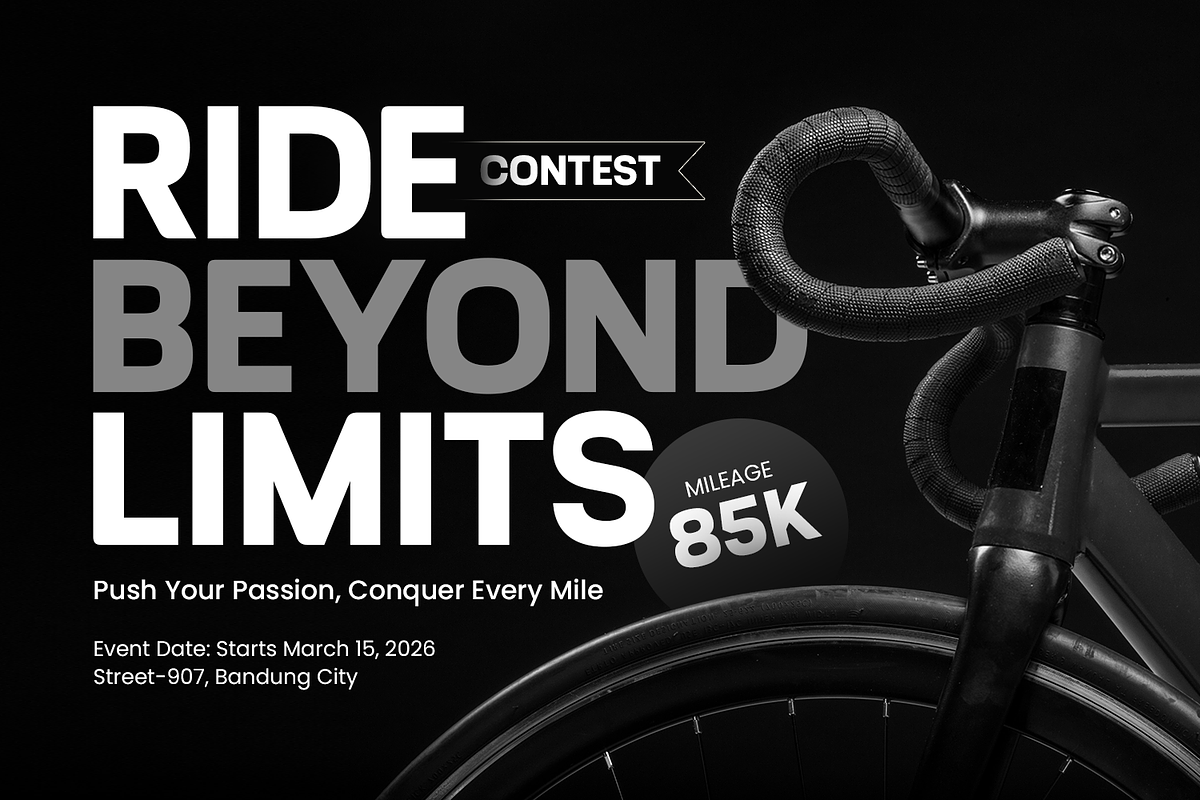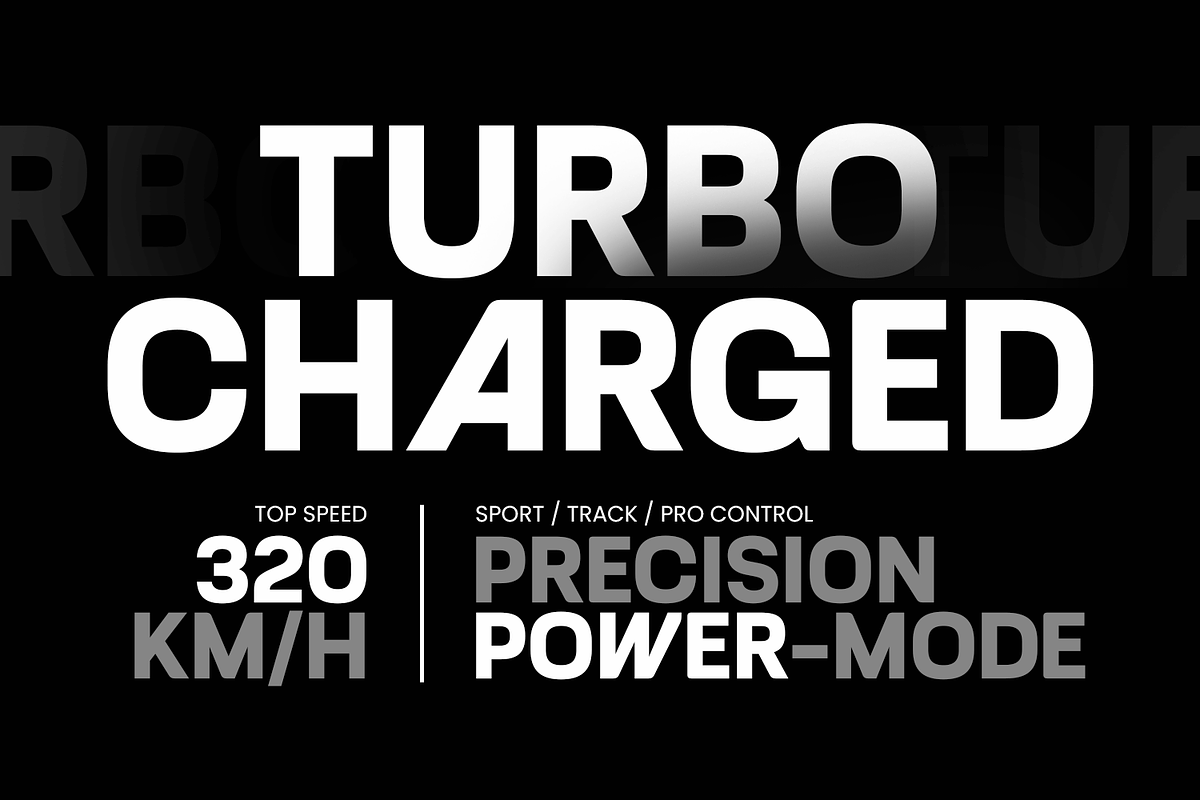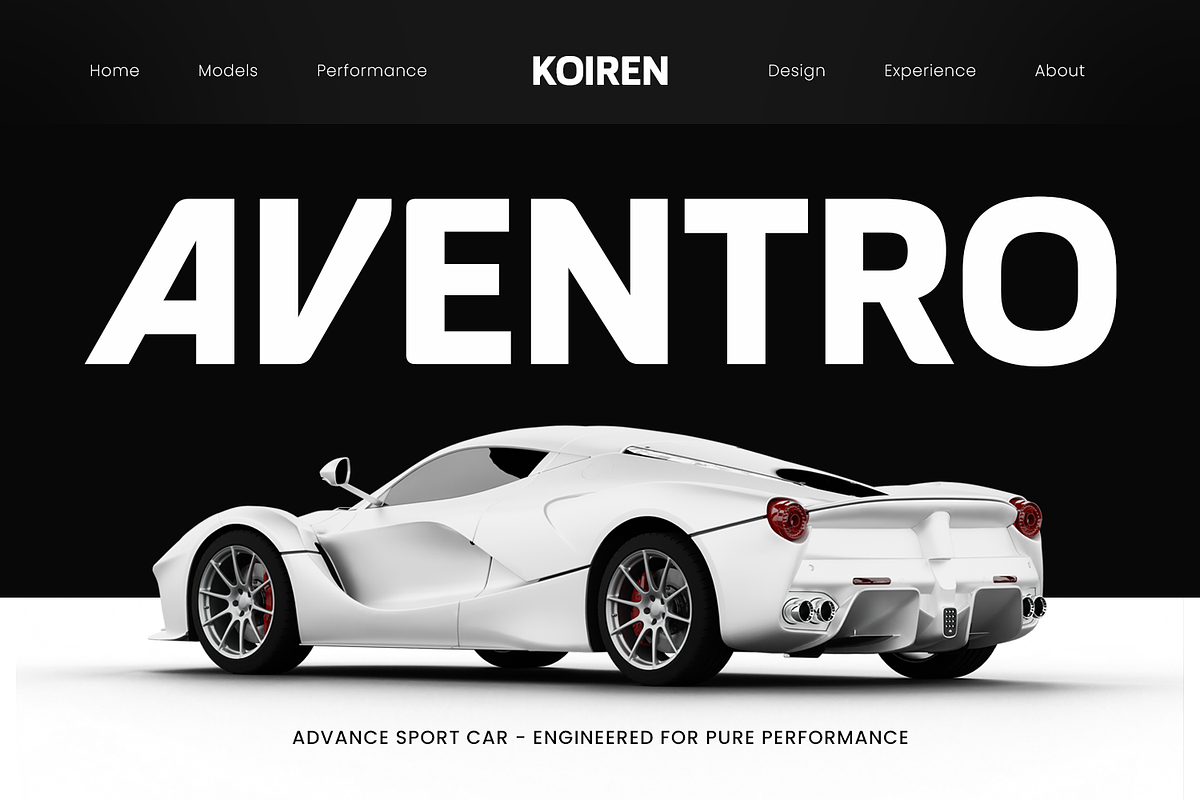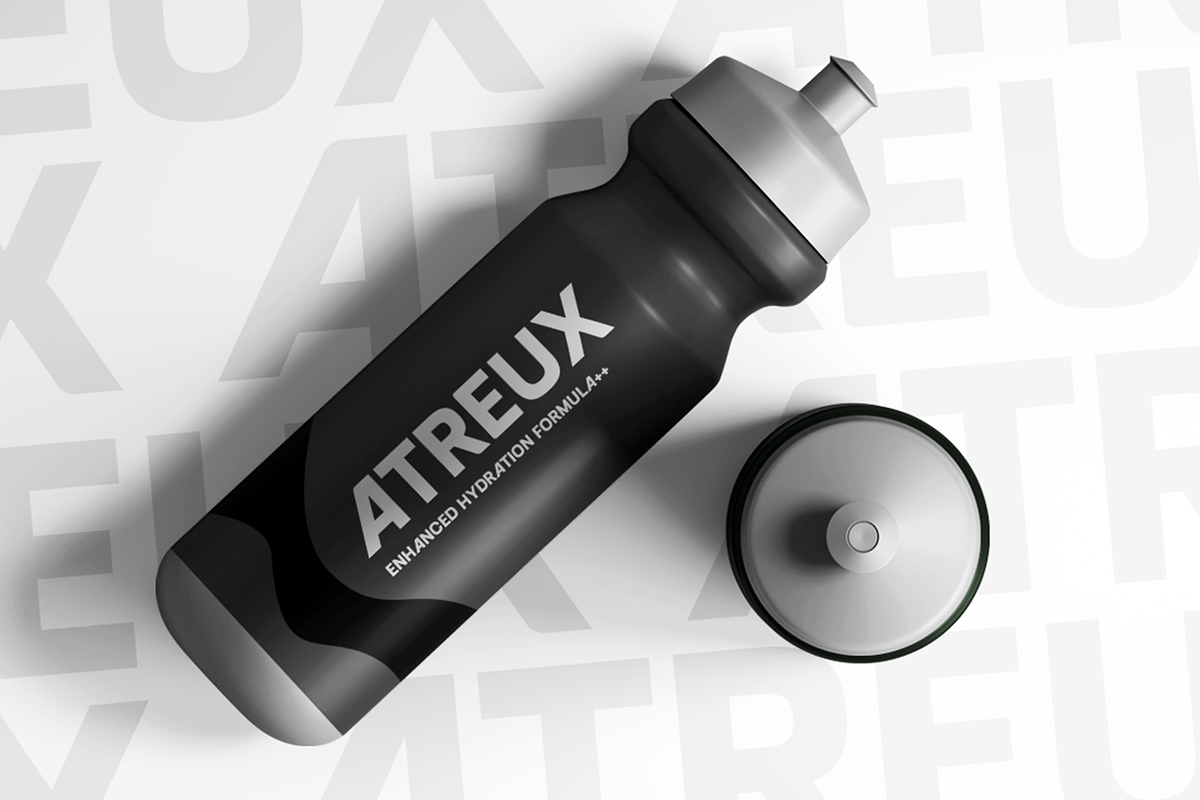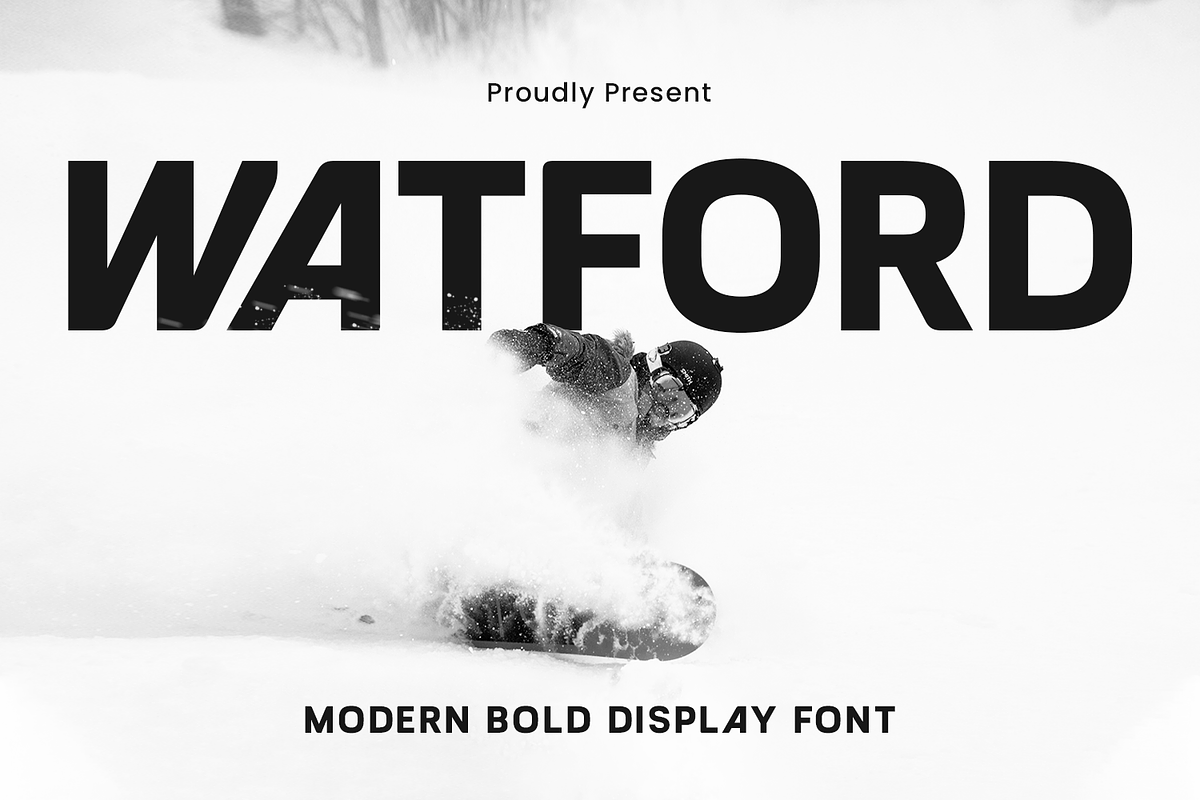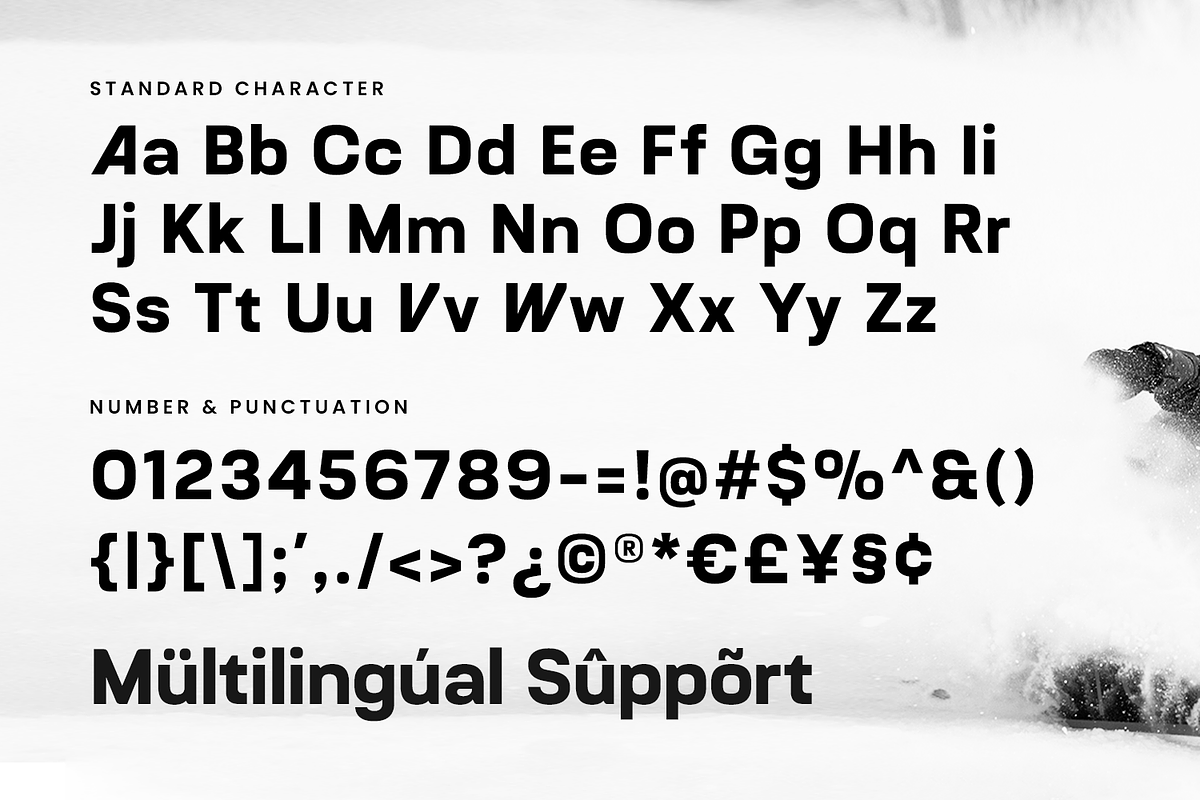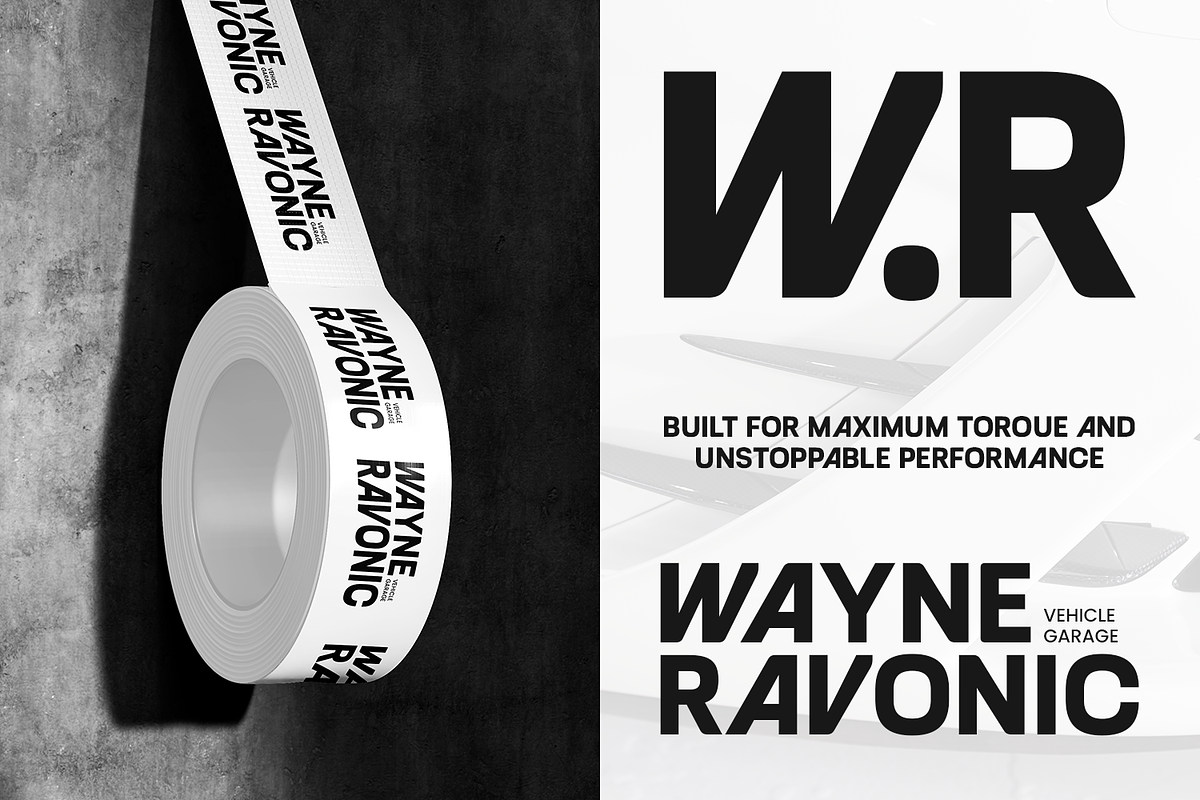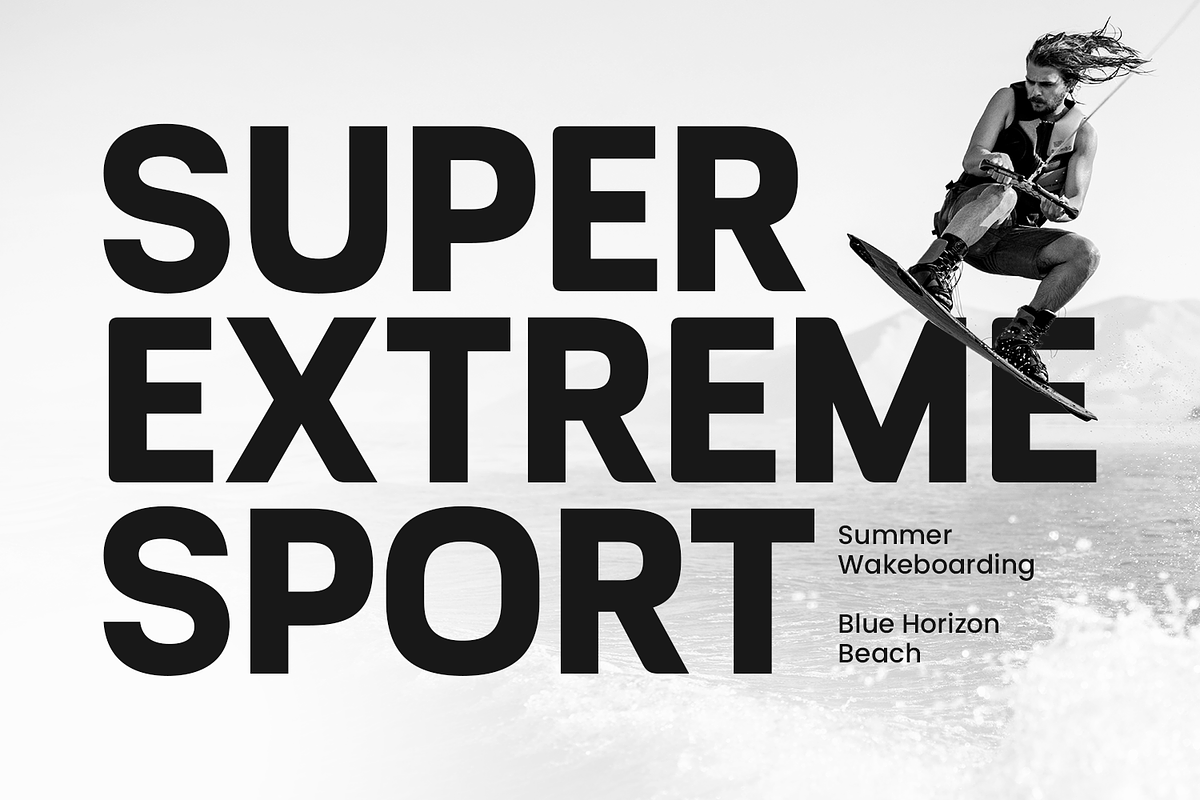
WATFORD - SPORT FONT
Watford – Modern Strong Display Font is a bold and contemporary design built to command attention in any visual setting. Its striking structure and confident letterforms bring a sense of strength and clarity, perfect for making impactful headlines, titles, and standout typography. Every curve and edge is shaped to deliver maximum visual power and readability.
With its clean geometric foundation and sharp detailing, Watford delivers a modern aesthetic that blends innovation with precision. The strong contrast and balanced proportions make it ideal for both digital and print media, ensuring every word makes a lasting impression.
The font includes an additional outline style, offering flexibility and creative options for layered or highlighted compositions. This extra variation allows designers to create depth and emphasis while maintaining a cohesive visual identity.
Watford’s modern appeal makes it suitable for branding, posters, editorial layouts, advertising, and any project that demands attention and authority. Its solid presence enhances visual impact while preserving a refined and contemporary character.
Bring bold energy and modern sophistication to your next design project — explore the power of Watford today.